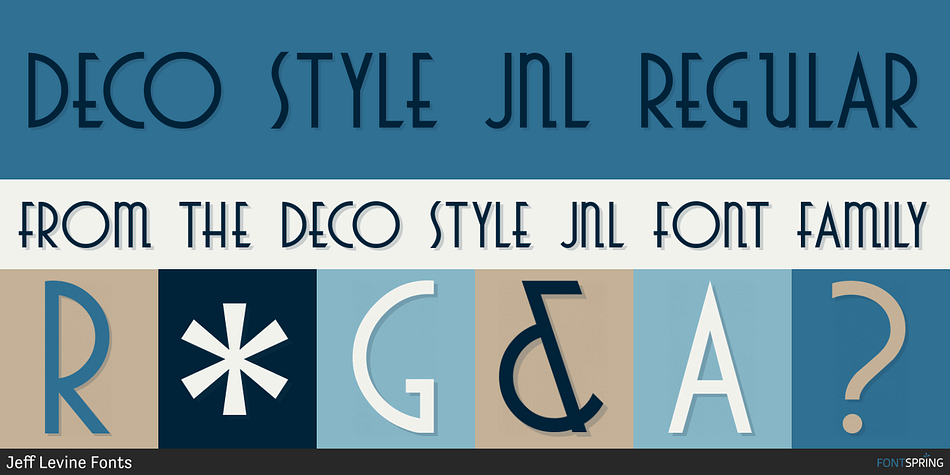
DECO STYLE JNL REGULAR
Designed by Jeff Levine, Deco Style JNL is a art deco font family. This typeface has two styles and was published by Jeff Levine Fonts.
The hand lettered title on the 1943 sheet music for “This Love of Mine” formed the basis for Deco Style JNL, which is available in both regular and oblique versions.